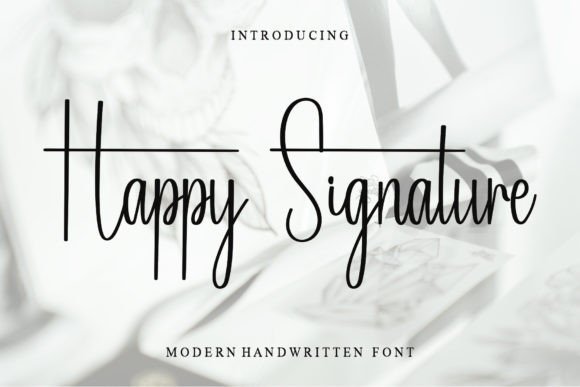
Unlocking the Secret to Creative Bliss: Introducing Happy Signature Font
Have you ever found yourself in the middle of a creative project, and suddenly, everything just clicks? The ideas flow, the colors pop, and the design takes on a life of its own? That’s the magic of creating something truly special. For designers, finding the right font can be the key to unlocking that creative bliss.
Enter Happy Signature Font, a beautiful script font that’s been carefully crafted to evoke a sense of elegance and natural charm. Whether you’re looking to add a personal touch to your Instagram posts or create stunning calligraphy scripts for DIY projects, this font is sure to turn your ideas into a work of art. With its versatility and sophistication, Happy Signature Font is a valuable addition to any designer’s toolkit.
Key Features of Happy Signature Font
- Unique Characteristics: Hand-drawn, whimsical design elements, including flourishes and swashes, adding a touch of personality to signatures and documents.
Happy Signature Font Review
I recently had the chance to work with the “Happy Signature Font”, and I’m here to share my honest thoughts. Overall, I think this font has some great qualities that make it suitable for certain projects, but it also has some limitations that should be considered.
- ✨ Unique and playful design: The “Happy Signature Font” has a distinctive feel that’s perfect for creating a lighthearted and approachable atmosphere.
- ✨ Versatile: This font works well in a variety of contexts, from social media graphics to wedding invitations.
- ✨ Customizable: The font comes with a range of customization options, making it easy to tailor the look to suit your project.
- ⚠️ Limited legibility: In certain situations, the font can be difficult to read, especially at smaller sizes.
- ⚠️ Not suitable for formal projects: The playful design of the font makes it better suited for casual projects, but it may not be the best choice for more formal documents or presentations.
- ⚠️ Some glyphs may not be complete: I noticed that some of the font’s glyphs were missing or incomplete, which could be a problem for projects that require a comprehensive character set.
Overall, I think the “Happy Signature Font” is a fun and versatile choice for certain projects. However, it’s essential to consider its limitations and ensure it’s the right fit for your specific needs.
Happy Signature Font: A Practical Application Guide
The Happy Signature Font is perfect for personal and professional use cases, such as: